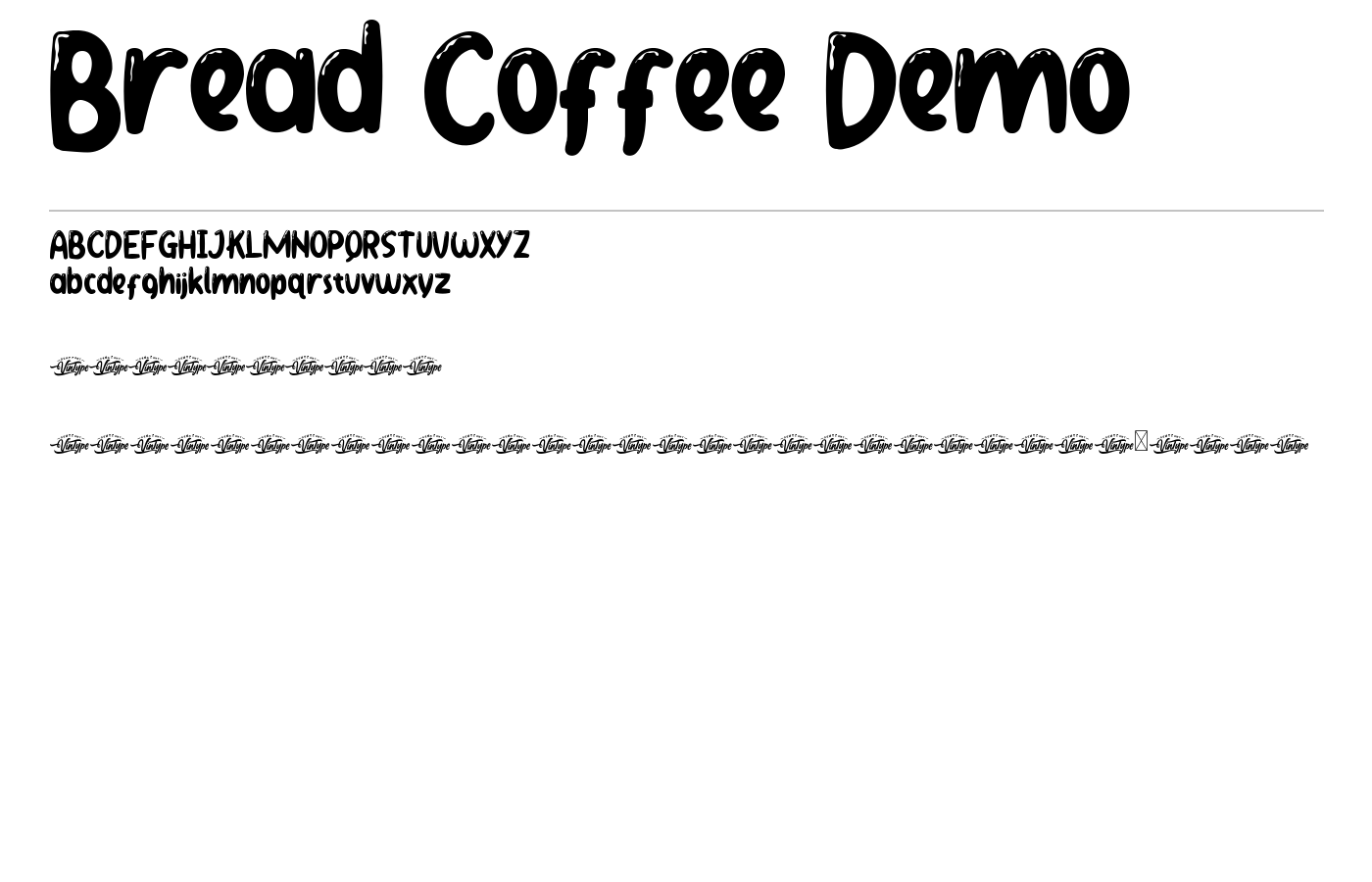
Bread Coffee Demo is a playful, hand-drawn sans serif font with a bold weight and rounded, slightly irregular letterforms that give it a warm, casual feel. Its high x-height and consistent stroke thickness make it easy to read, perfectly suited for friendly branding, children’s materials, and informal headlines. This font works best where a fun and approachable vibe is needed, adding personality without sacrificing clarity.
Bread Coffee Demo Font
About Bread Coffee Demo Font